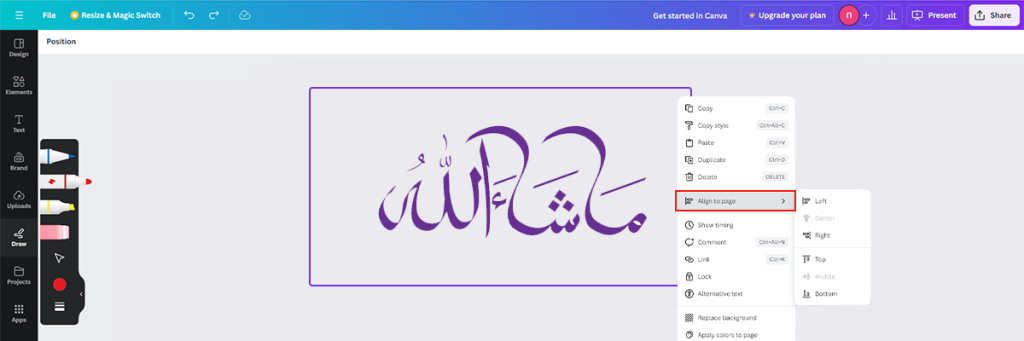
Creating Urdu content in Canva can be both rewarding and challenging, especially when you want to ensure your designs are not only visually appealing but culturally appropriate as well. Although Canva provides ready-to-use elements for designing posts, cards, posters, etc., customizing them according to your needs can be difficult, especially when it comes to Urdu typography. There are a lot of things that need to be considered while crafting design projects for a specific group of people. As Urdu is the native language of Pakistanis and, to some extent, Indians, therefore the designs we make must be according to them, whether we’re pitching an idea or simply conveying a message. Choosing the right font is one thing, but in this guide, we are going to discuss what other considerations must be taken into account while designing media for Urdu-speaking audiences. So, sit still and learn about our seven useful tips to help you design Urdu content using Canva effectively. Moreover, check out our carefully curated collection of 25 Urdu Fonts for Canva artworks.
Designing Urdu content in Canva can be an exciting process, as it allows you to combine creativity with linguistic and cultural sophistication. From deciding to designing, we are going to make this process smooth and effective. Here are seven useful tips to help you make the most of Urdu fonts and text in your designs:
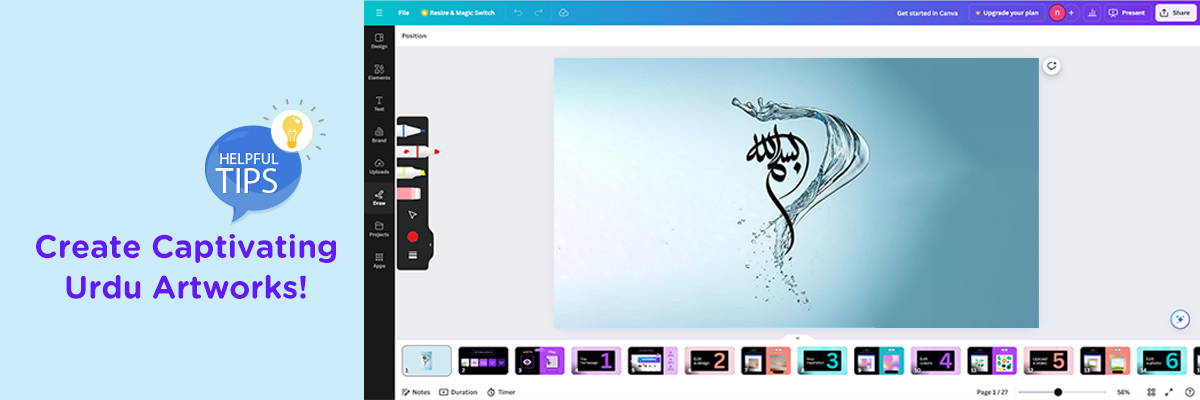
Before you begin to design or create anything, it’s a good idea to learn, read, research, and use resources. Through research is key for a successful outcome, whether you're gathering materials or information. As your target audience is mostly South Asians, it would be better to use design schemas that align with them. Colors play an important part in that, therefore, go for the colors that contrast well with the background and align with your audience to make your text stand out and attention-grabbing.
Urdu typography is unique, so selecting the right font is crucial. A font is like the backbone of your design; a little inappropriation can make your whole design look absurd. Canva offers various built-in Urdu fonts, but you should choose one that suits the tone and purpose of your content. You can download them online from various reliable Urdu Font Resources, like Google Fonts, Urdufonts.com, and more. For formal or literary content, consider using fonts like Nastaliq, which is known for its elegant and flowing style. For more modern and straightforward designs, Naskh might be a better fit.
A big mistake that some of us make while designing is to overwhelm the artboard with a handful of fonts and styles. Using 2,3 appropriate fonts is better than overloading it with ten different typefaces. However, if you want the variation, use Urdu Font Families with a variety of weights. This way, you can create a difference in design with weights rather than using entirely different fonts that can complicate the outlook. Some famous font families are Swissra, Doran, Al Jazeera, and more.
To enhance the visual appeal and effectiveness of your design, design your template in a way that hierarchy of information is clear, meaning ensure that readers don’t have to ponder which text comes first or hold weight, it must be clear. Use different font sizes, weights, and styles to differentiate headings, subheadings, and body text. This technique helps guide the reader’s eye through the content smoothly. Also, learn about some Canva Graphic Design Techniques for beginners.
Since Urdu is written from right to left, make sure to align your text boxes accordingly. Canva allows you to adjust text alignment, so set it to right-aligned to maintain the natural flow of Urdu text. This alignment helps maintain the visual balance of your design. Moreover, proper letter spacing and line height are essential for maintaining readability in Urdu typography. Too much or too little space can make the text difficult to read. Use Canva’s text spacing tools to adjust these elements and ensure that letters and words are distinct and clear.
When designing Urdu content, prioritize readability. Adjust the font size to ensure that the text is clear and legible on different devices and platforms. Avoid overly decorative fonts for body text, as they can hinder readability, especially in smaller sizes. You can also improve readability by omitting the excessive use of design elements. This way, your text will have more space and capture the reader’s attention at first glance. Also, read our guide to choosing Legible Urdu Fonts for digital writing purposes.
Canva offers a wide range of templates that can be customized for Urdu content. Start with a template that suits your purpose and modify it to include Urdu text. This can save time and provide inspiration for layout and design elements. To make your Urdu design more relatable, add some cultural elements such as patterns, motifs, or imagery relevant to the Urdu-speaking audience. This approach not only improves the design but also adds authenticity and emotional appeal to your content.
Creating Urdu content in Canva can sometimes be a bit difficult due to the unique nature of the Urdu script. Earlier we have discussed some tips for Canva Urdu content designing now let's look into some common problems faced by designers. Here are some common challenges users face and their practical solutions to help streamline the design process. These solutions can help you deal with the complexities of designing Urdu content in Canva, ensuring you a smooth work process.
| No. | Challenge | Solution |
|---|---|---|